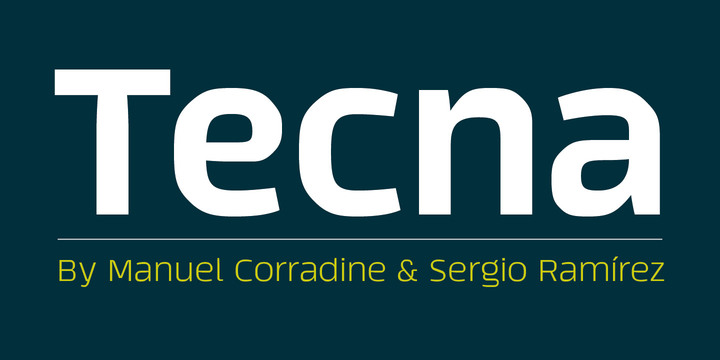
Tecna is a modern sans-serif typeface created by Manuel Eduardo Corradine & Sergio Ramírez and published by Corradine Fonts. With its straight cuts, rounded glyphs and curved thinning, Tecna can give to the layout a very structural and modern appearance.